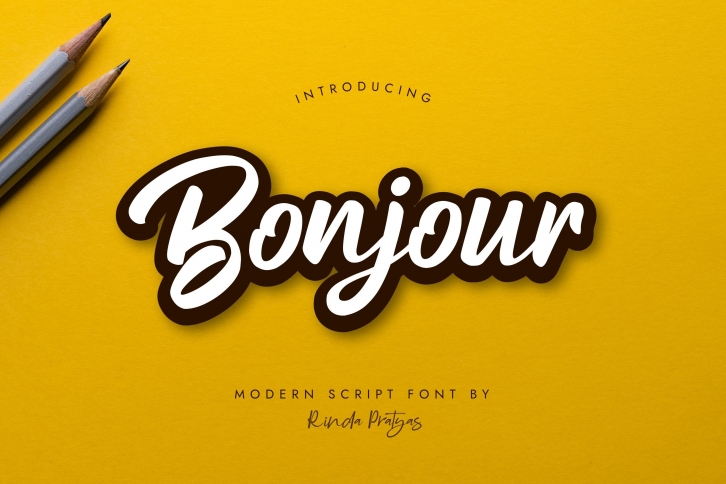
Bonjour Modern Script is a great font that was designed by RINDA PRATYAS. Imagine the amount of combinations you can create using this font! The archive is 10.43 MB and it was released on May 14, 2020. Bonjour Modern Script looks beautiful on wedding invitations, greeting cards, logos, posters, labels, t-shirt designs, logos, business cards and is perfect for use in ink or watercolor works, fashion, magazines, packaging and food menus, children's books and more!